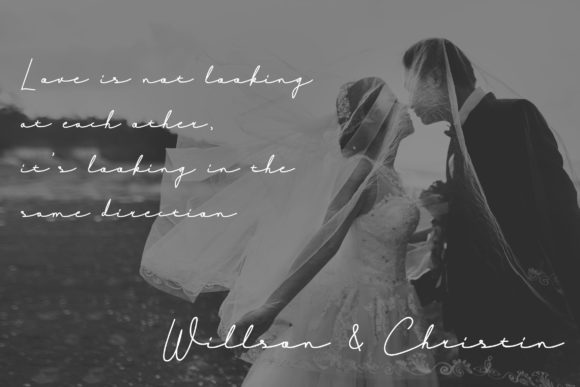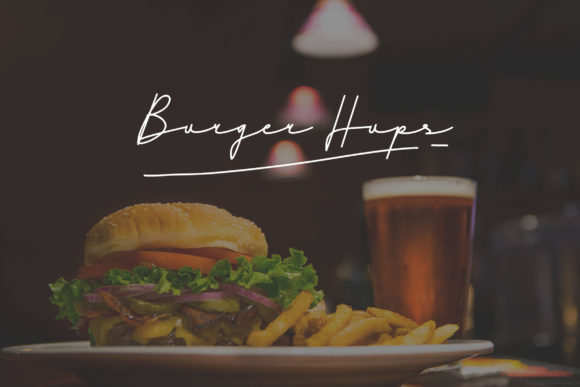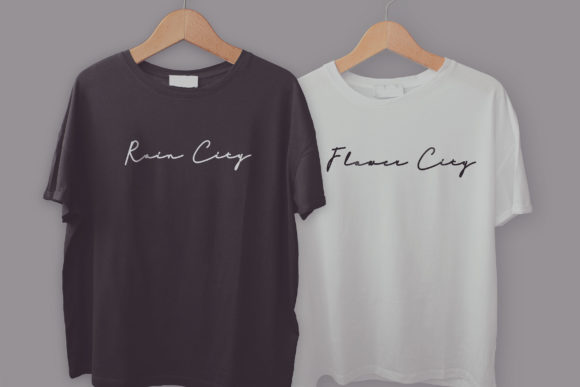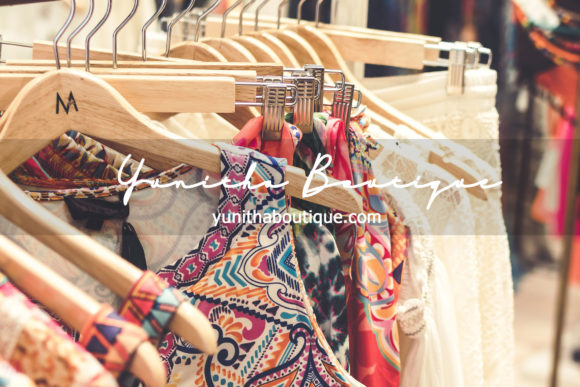
Signashine Font
About Signashine Font
The Signashine is an elegant and natural hand draw font. It can be used for various purposes such as t-shirt designs, posters, labels, quotes, book covers, invitations, logos, and much more.